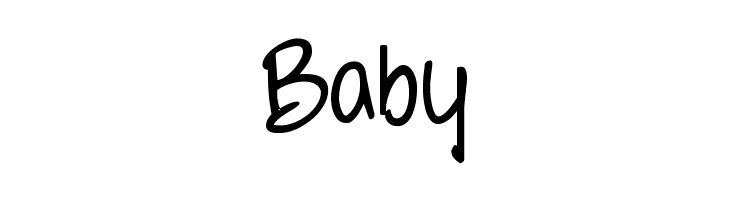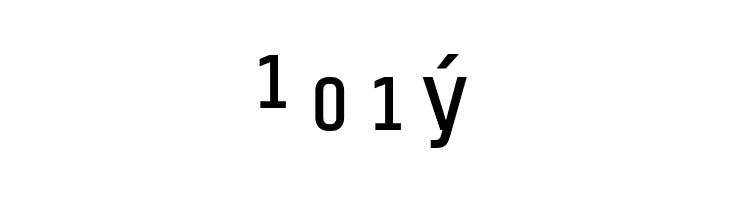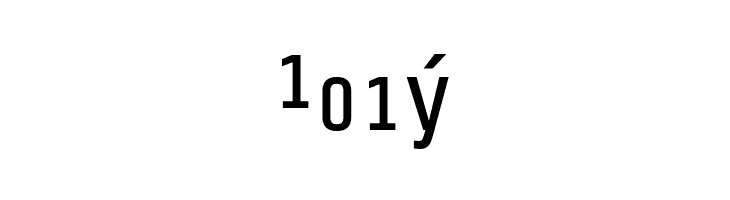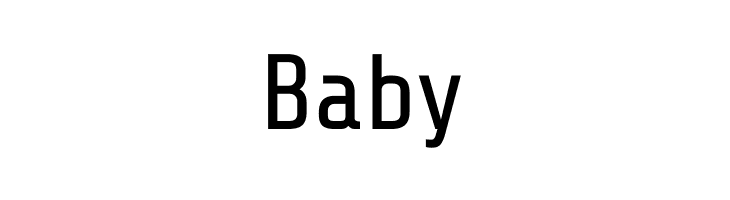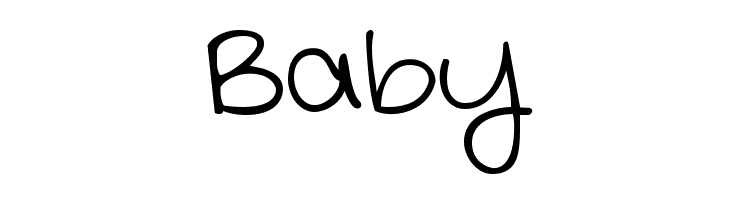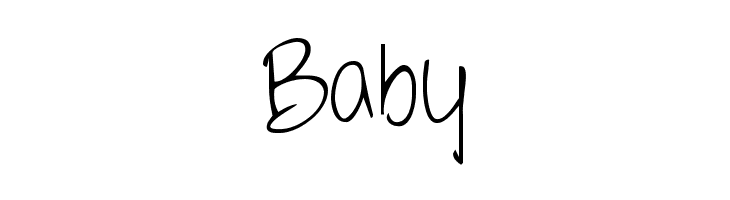
( Fonts by Carrois Type Design / Ralph du Carrois )
A modern, geometric sans-serif font with clean lines and rounded edges.
( Fonts by Carrois Type Design / Ralph du Carrois )
Geometric sans-serif font with a technical style.
( Fonts by Carrois Type Design / Ralph du Carrois )
A modern, monospaced font with a technical and geometric design.
( Fonts by Kimberly Geswein - kimberlygeswein.com )
A playful, casual handwritten font with flowing, organic letterforms.
( Fonts by Kimberly Geswein - kimberlygeswein.com )
A bold, playful handwritten font with a casual and lively style.
( Fonts by www.kimberlygeswein.com - Kimberly Geswein )
A playful, handwritten font with smooth, rounded edges and a casual style.
( Fonts by Alvaro Thomaz - alvarothomaz.com )
A modern sans-serif font with clean lines and balanced spacing.